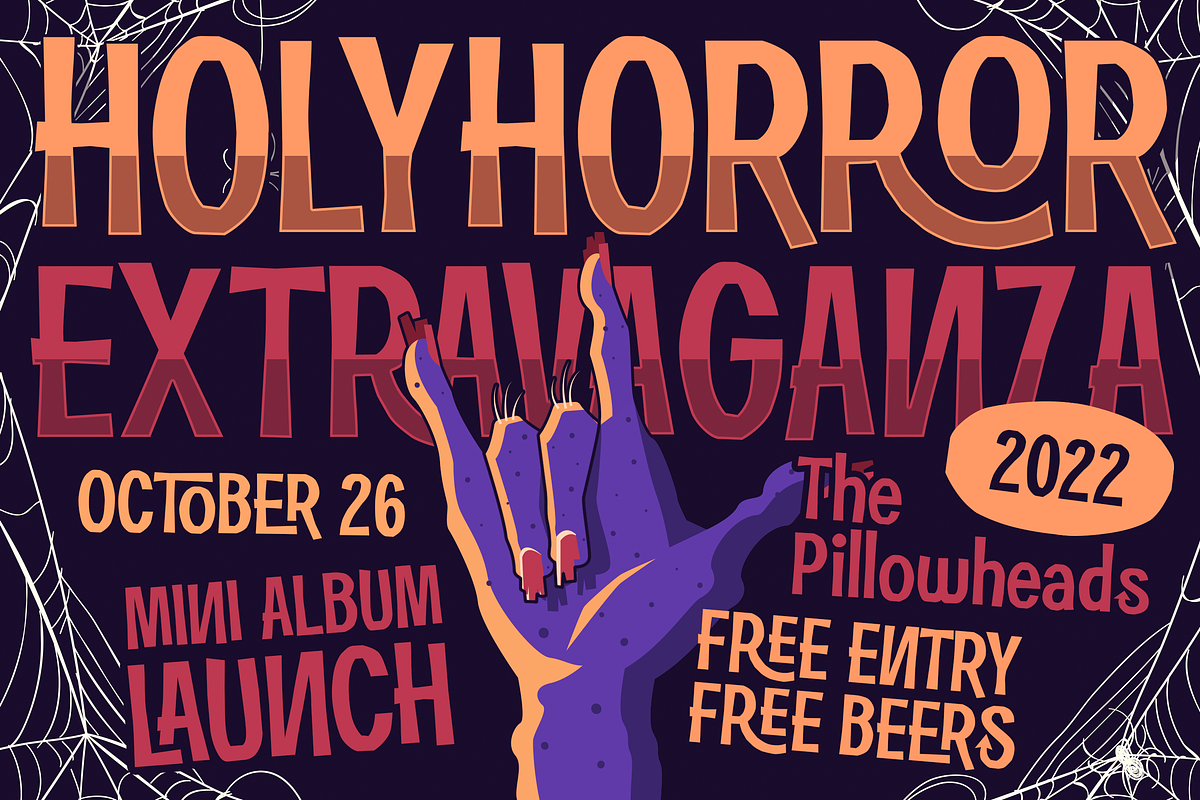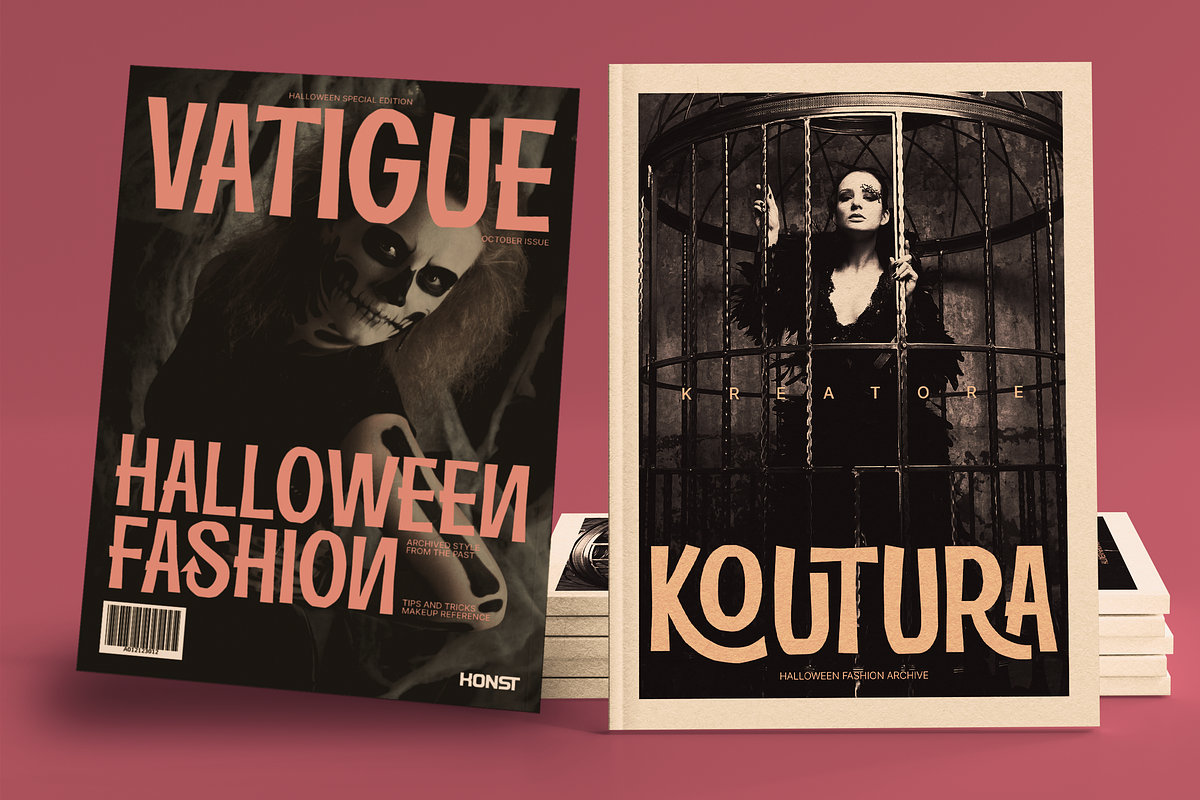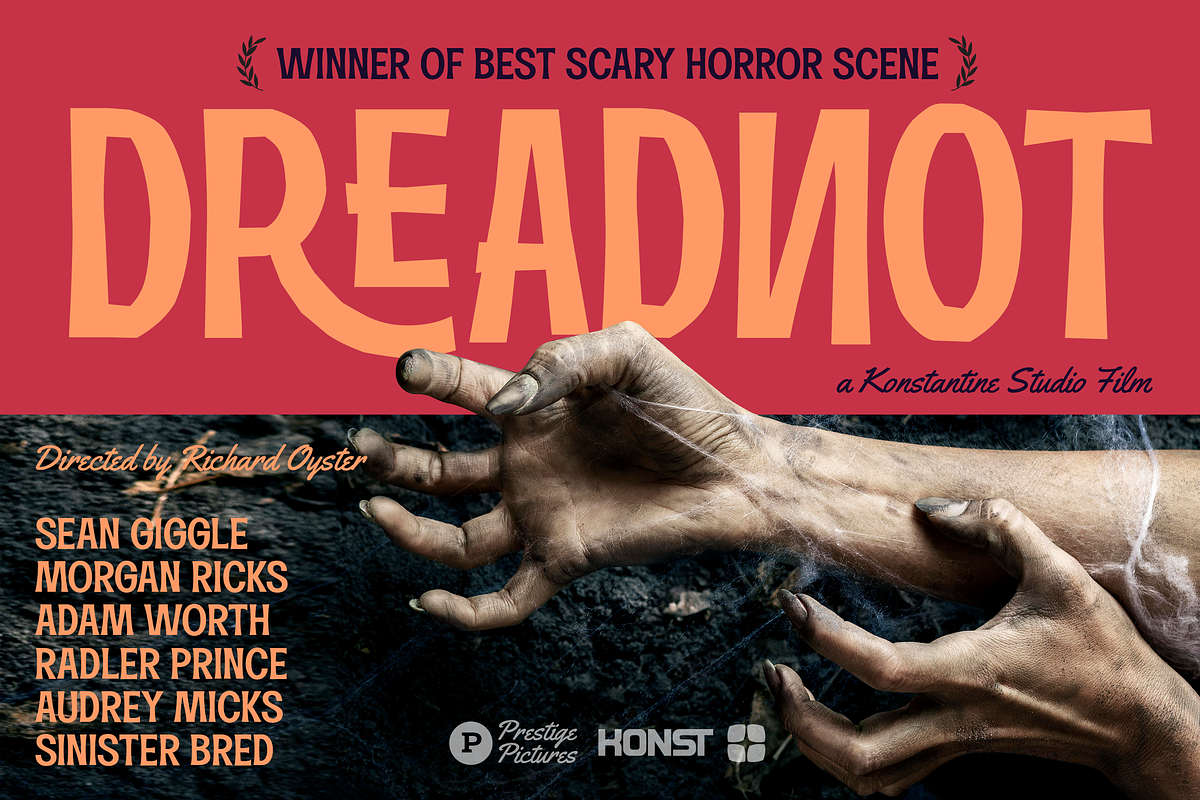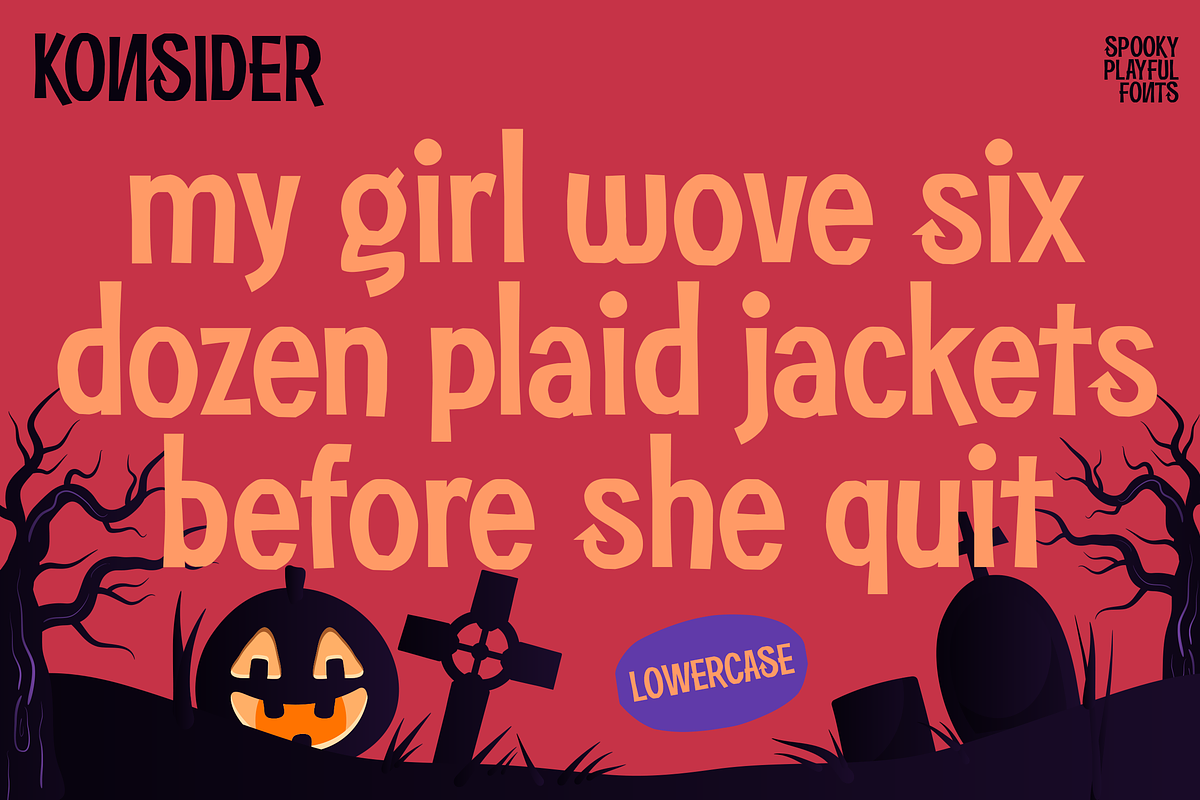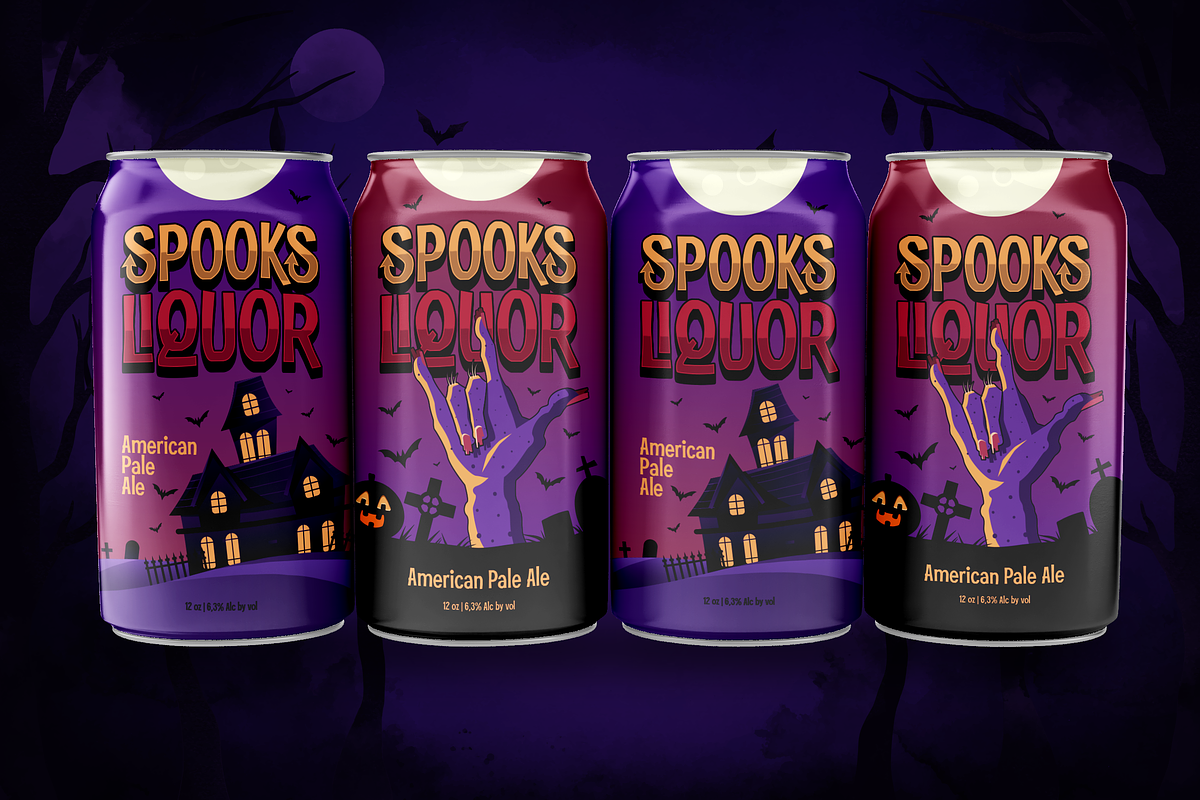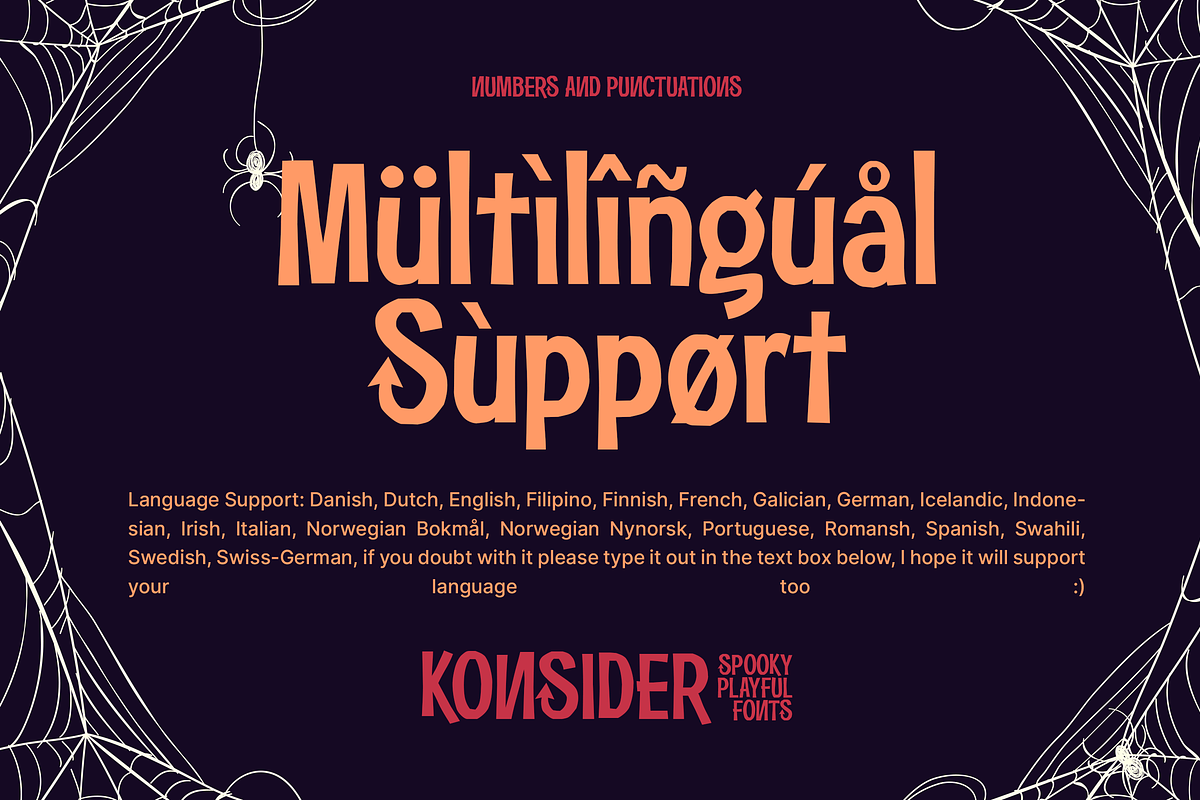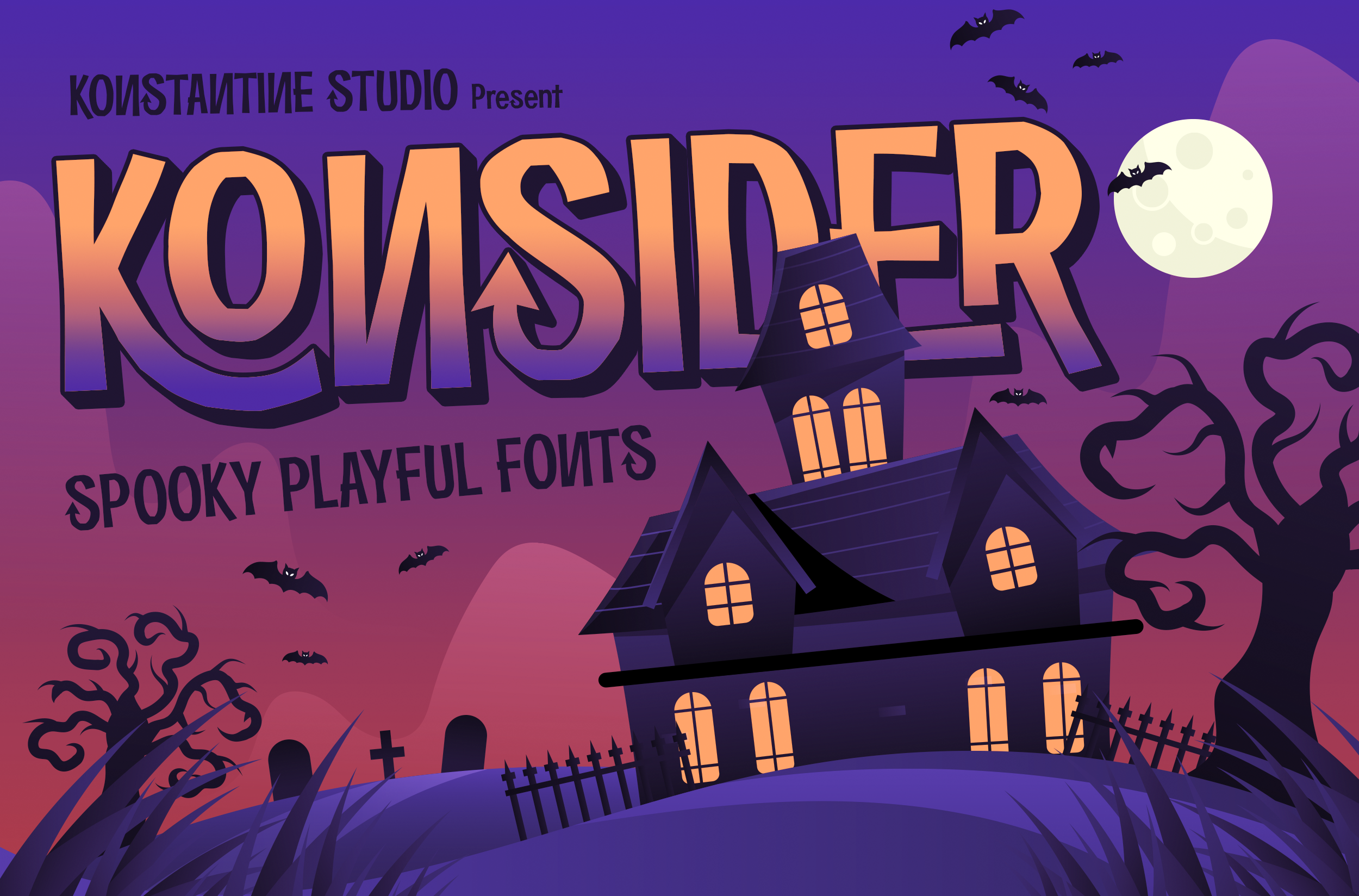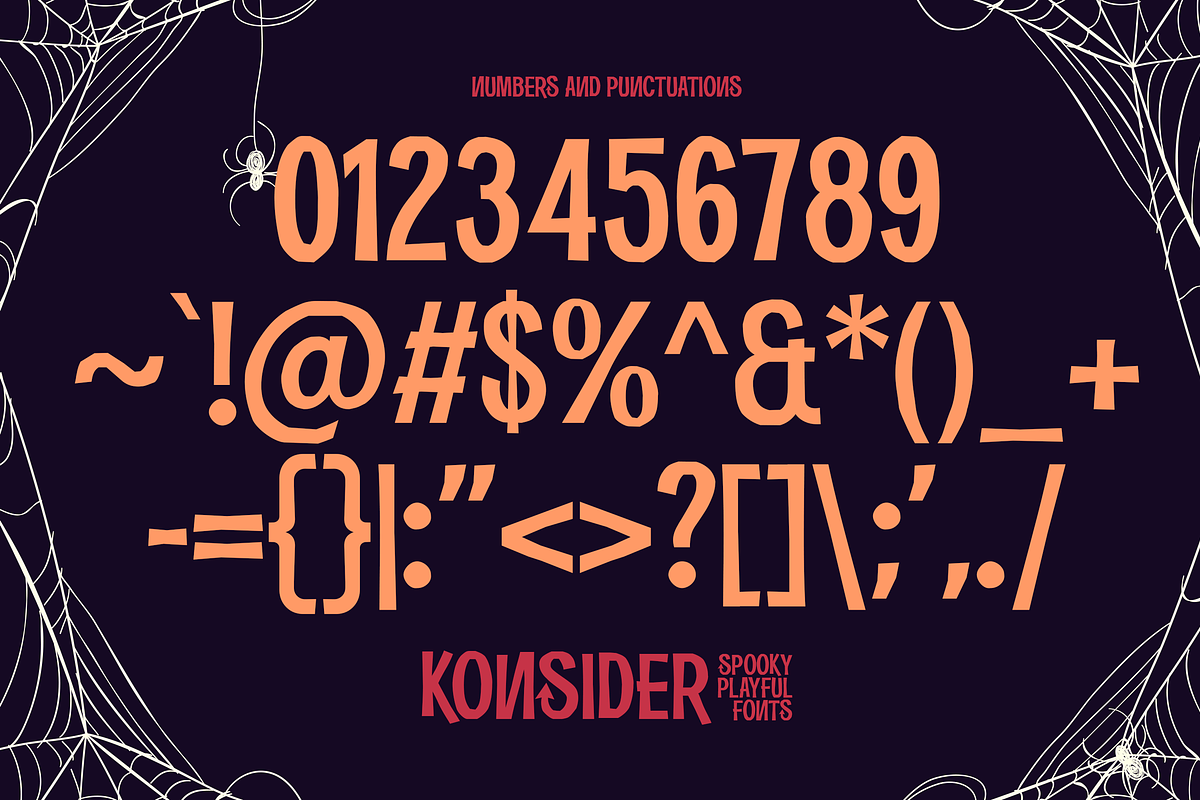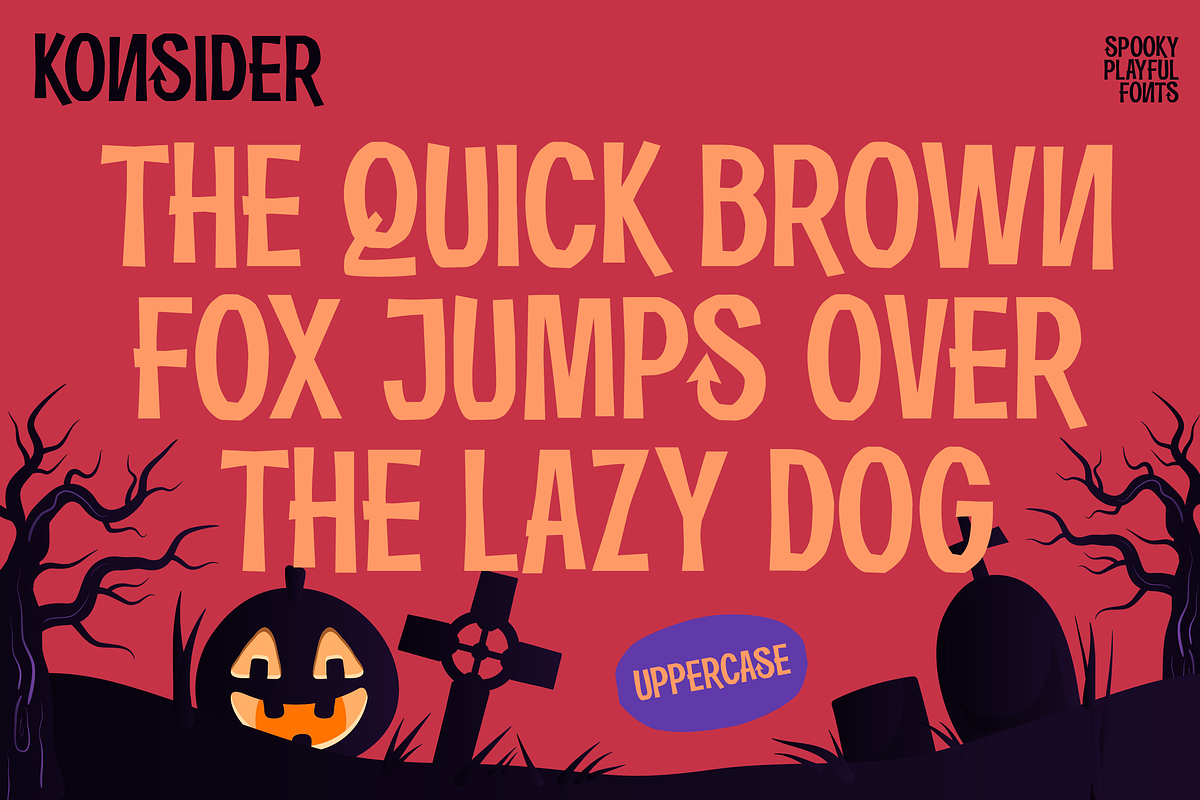
Get ready to channel your inner (cute) fear with KONSIDER—spooky yet playful fonts.
It was inspired by the vintage Halloween visual campaign, with a touch of happiness and cheerful vibes. To amplify the font itself so it can be a "no-doubt" choice for your branding campaign.
Packed up with Ligatures and Stylistic Alternates to double up the joy of your visual statement.
Perfectly fit for logo, branding, mood board, campaign, events, poster, game, esport, fashion, snack, packaging, streaming overlay design, graphic design, toys, and many more.